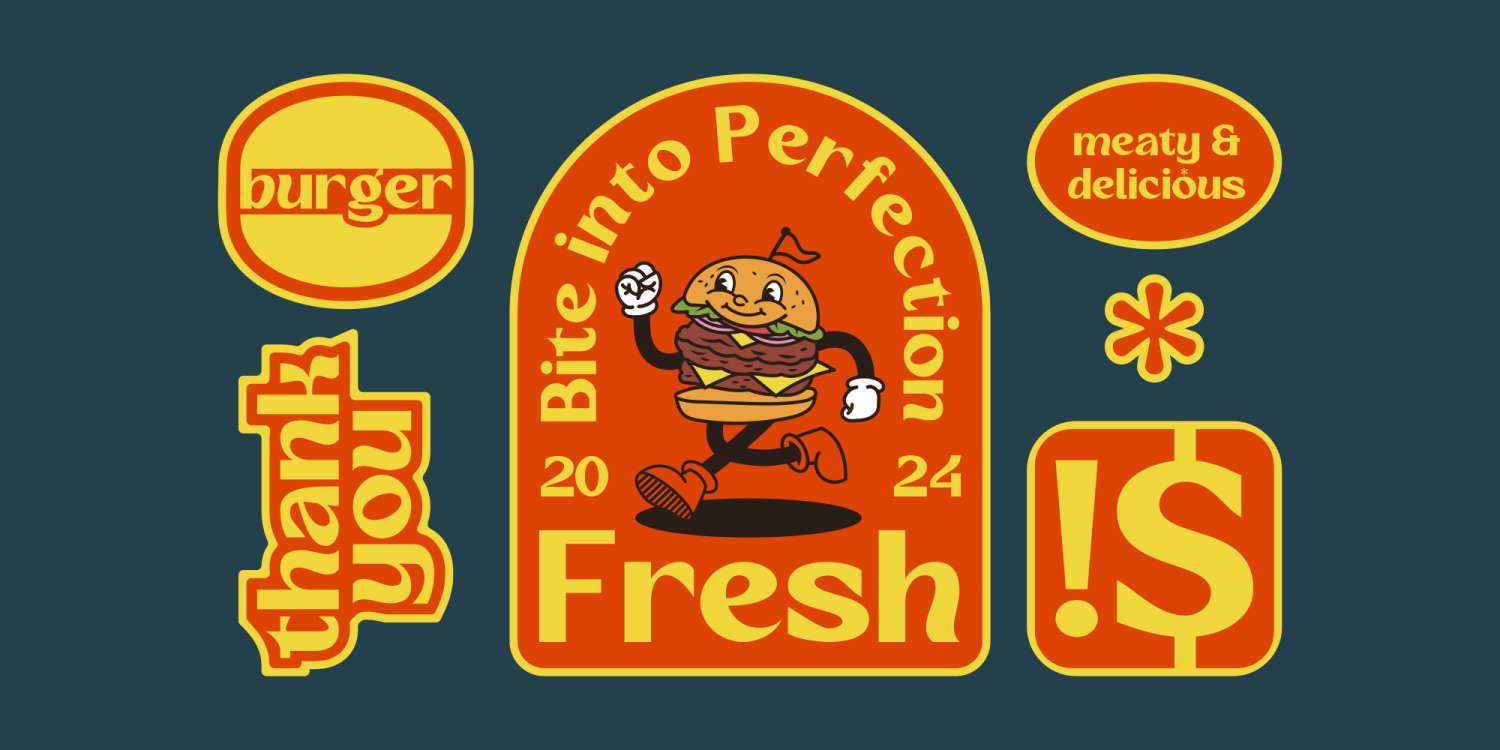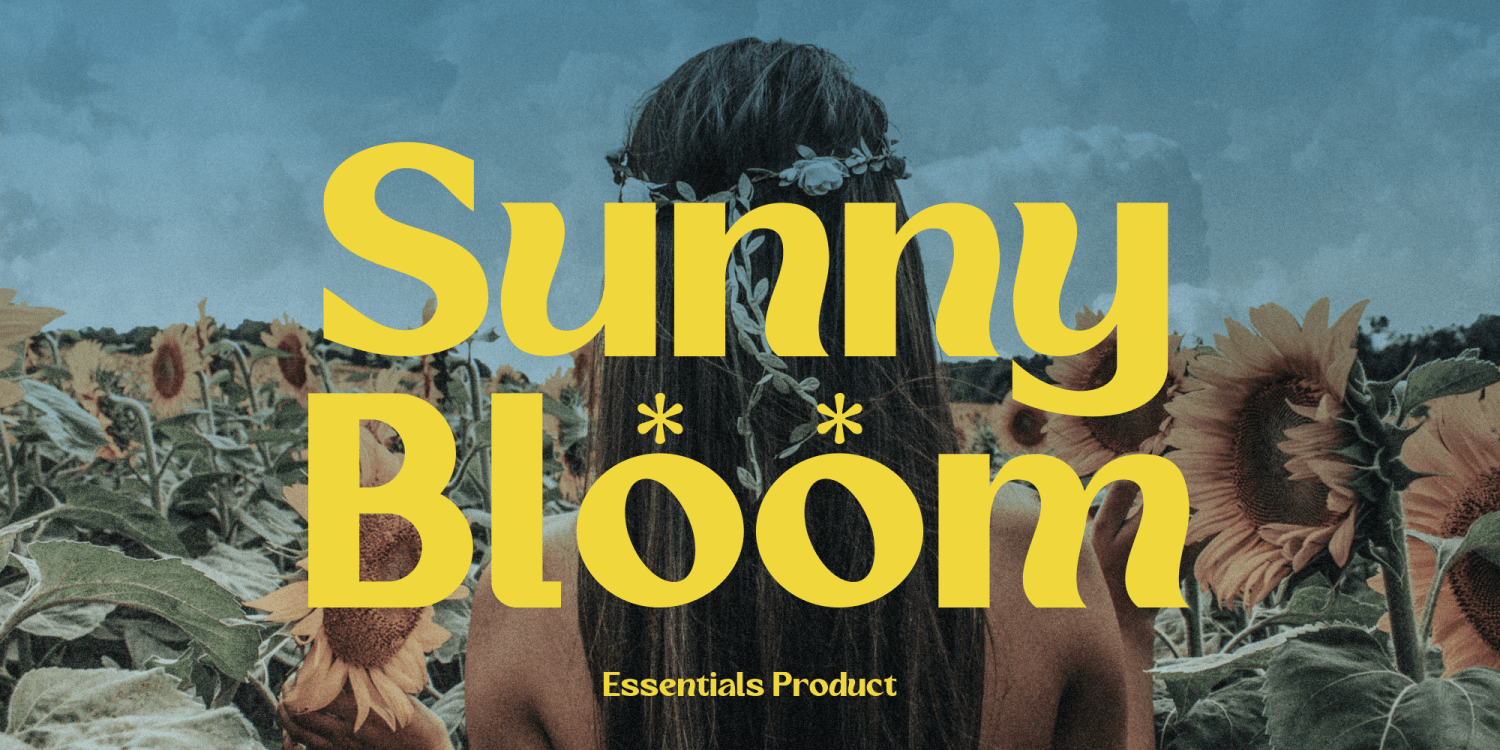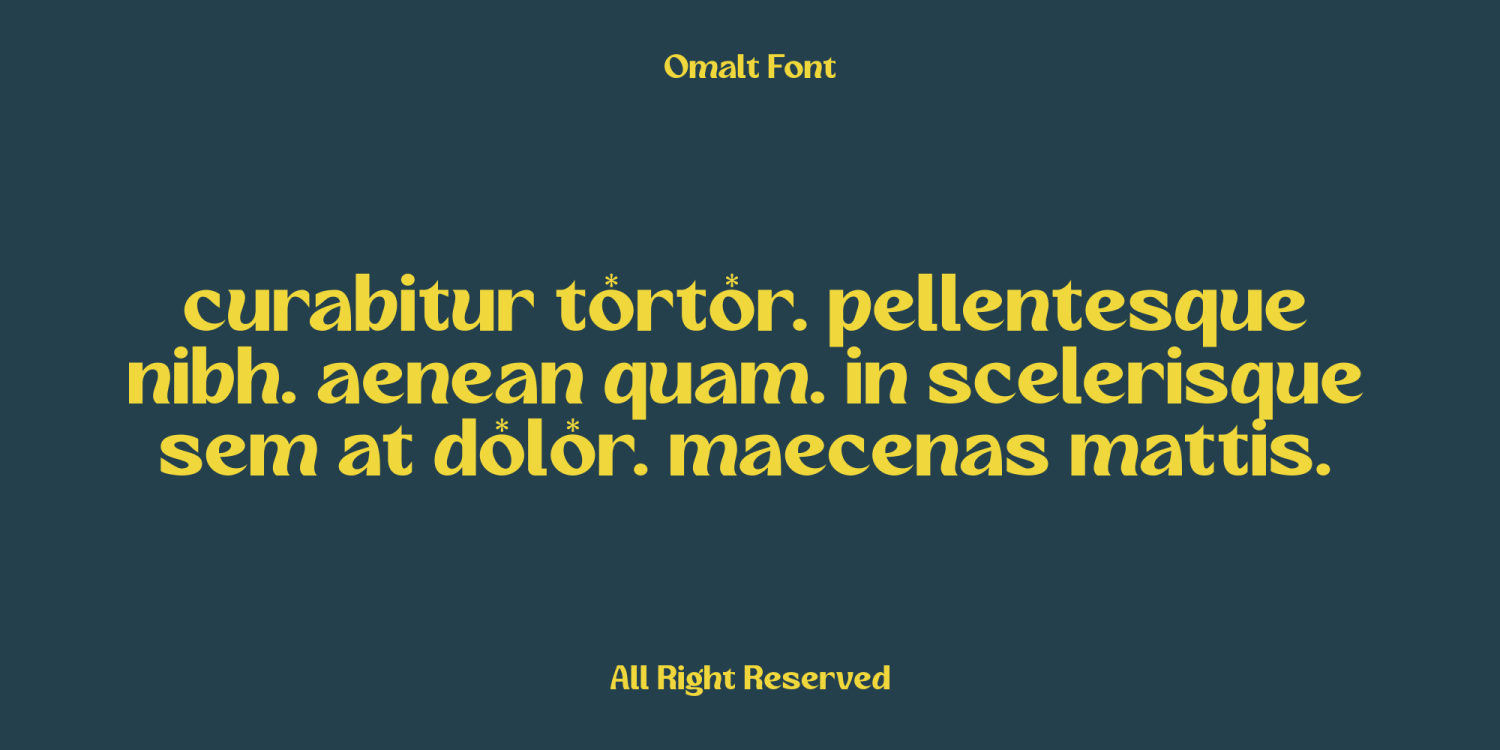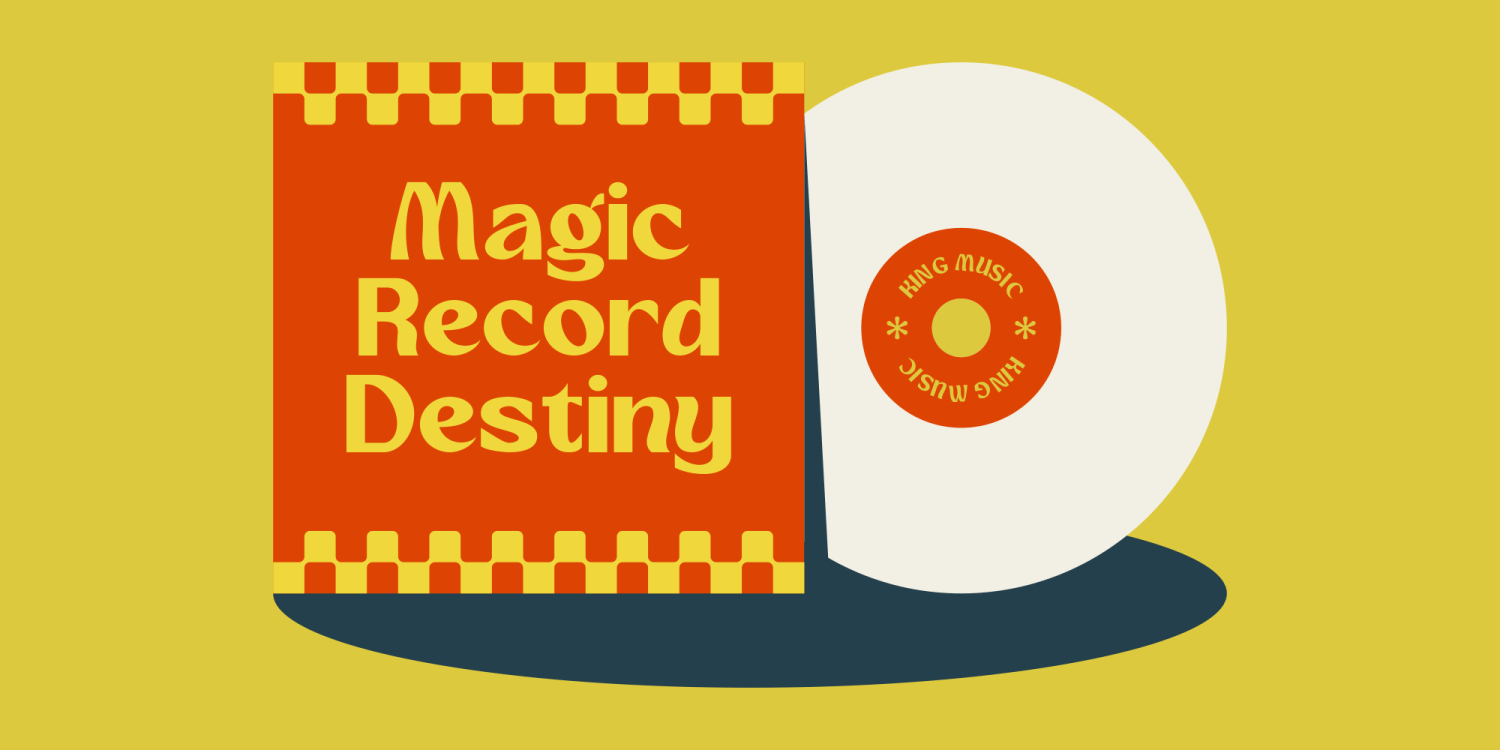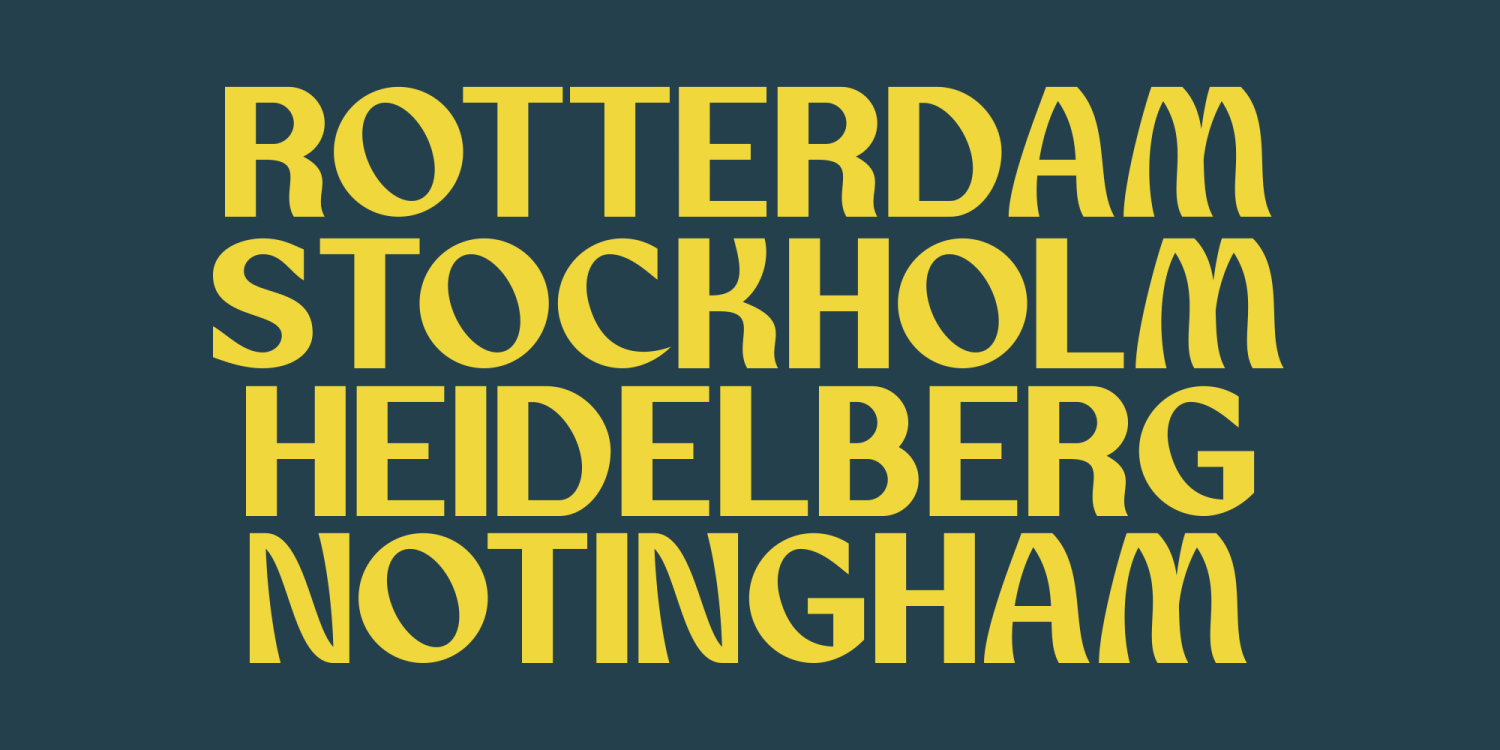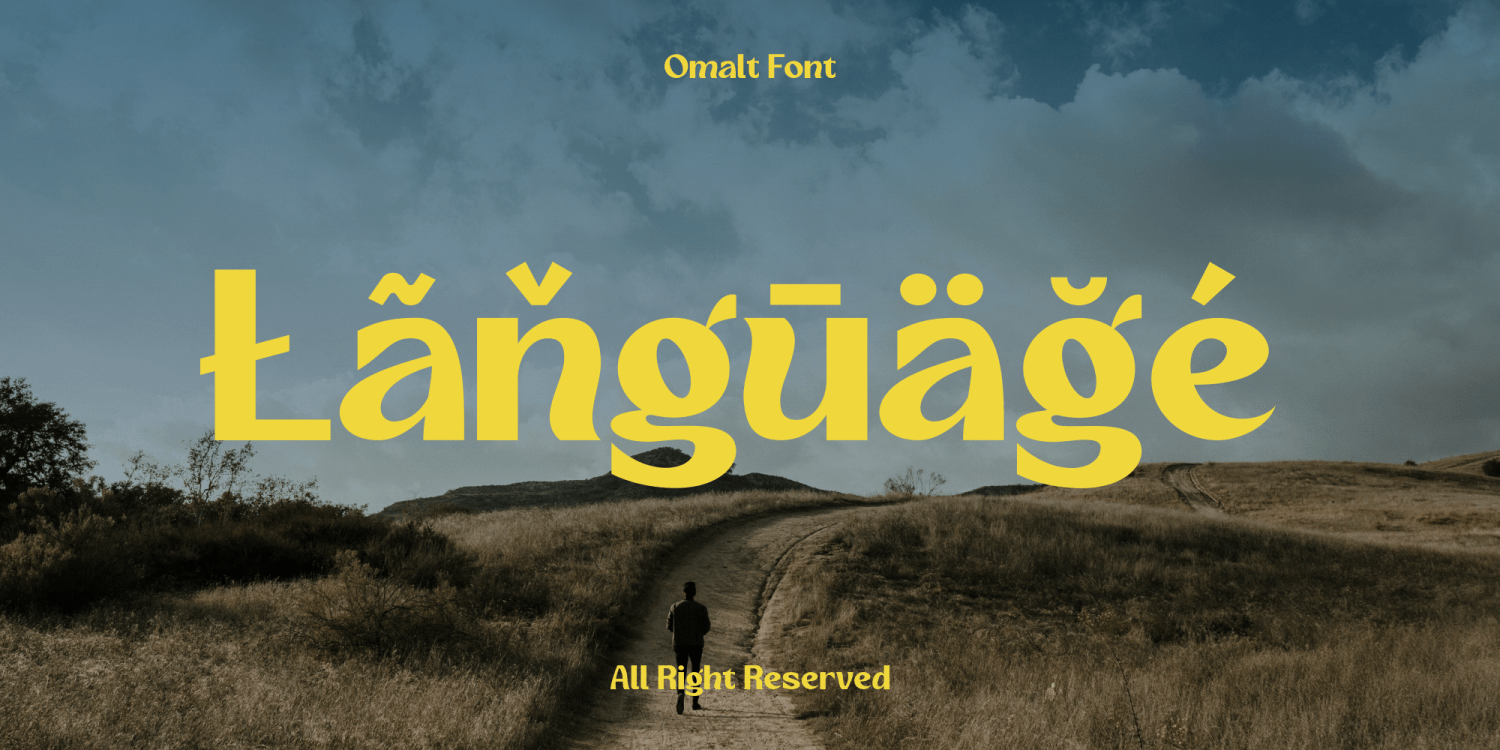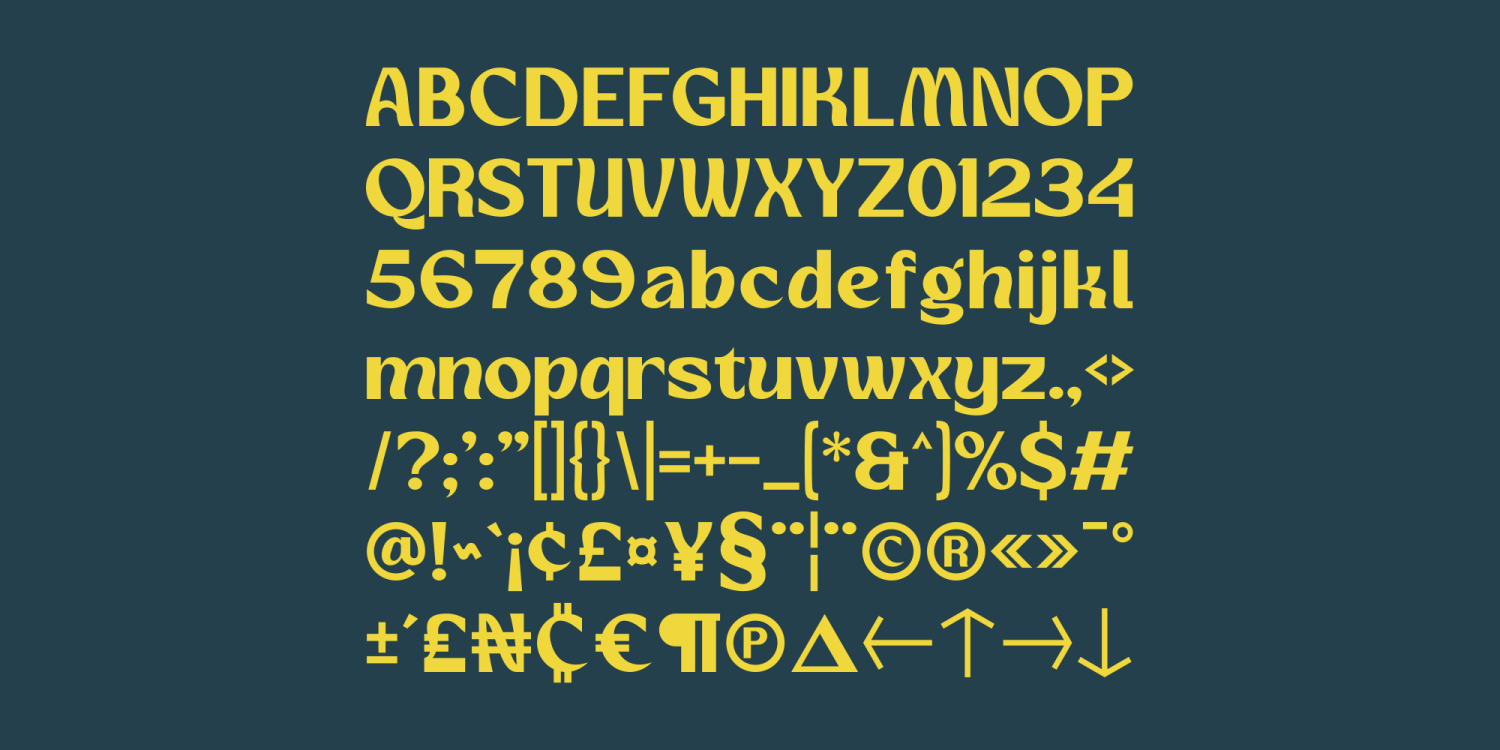
Omalt
Introducing Omalt is a bold, sans-serif display font that boasts a distinctive wave-like design element integrated into its characters. This unique feature sets Omalt apart, giving it a dynamic and playful appearance, reminiscent of ocean waves. Its boldness and striking design make it particularly well-suited for various design projects where visual impact is paramount. Omalt is an excellent choice for product packaging, logos, posters, and other templates that require a standout typeface. The font's quirky wave patterns not only enhance readability but also add a creative flair, making it a versatile tool for designers aiming to create memorable and eye-catching visuals.